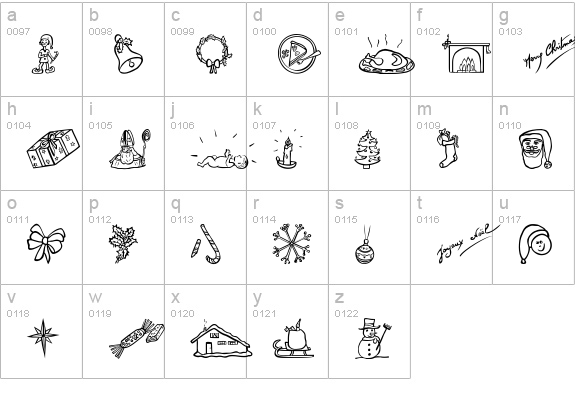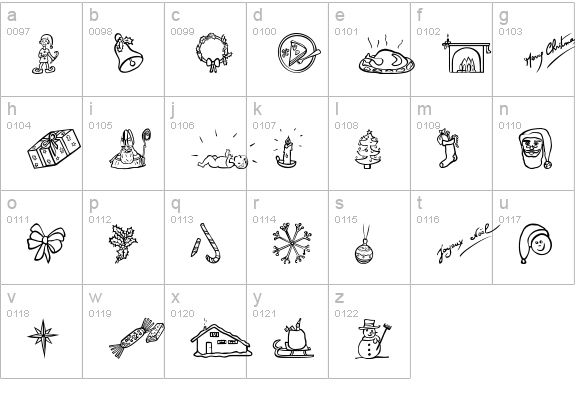
Merry Christmas Dings Font Details
Merry Christmas Dings font is a delightful and festive typeface perfect for adding a touch of holiday cheer to your designs. This whimsical font features a variety of Christmas-themed icons and symbols, making it ideal for creating cards, invitations, and other seasonal projects. With its playful and charming aesthetic, Merry Christmas Dings font is sure to bring a smile to your audience's faces. Best of all, Merry Christmas Dings font is available for free download at FontsMarket.com. Simply visit the website to add this charming font to your collection and start spreading the Christmas spirit in your designs today. Don't miss out on the opportunity to use this fun and festive font in your projects - download Merry Christmas Dings font now and let your creativity shine this holiday season!